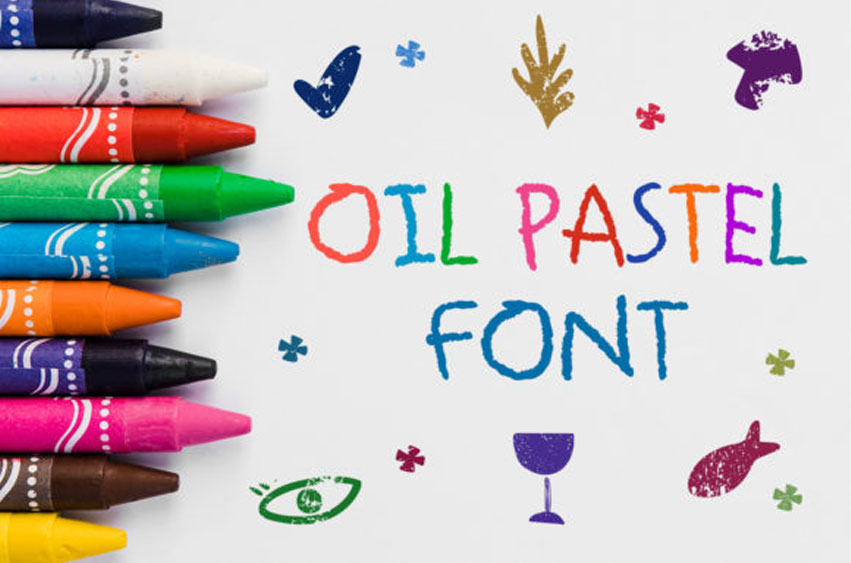
Oil Pastel Font
Oil Pastel Font is a beautiful and unique handwritten font. This simple yet colorful font would be a wonderful choice for a wide variety of projects and designs.
Add it to your most creative ideas, and notice how it makes them come alive!